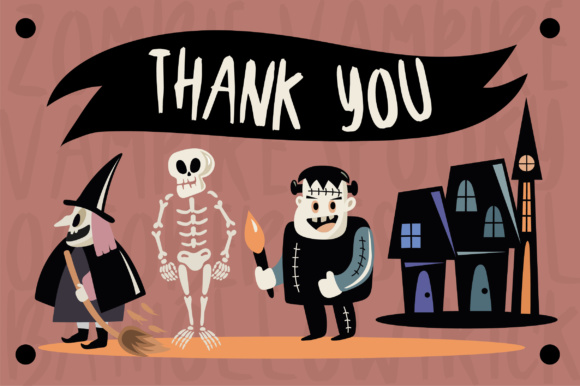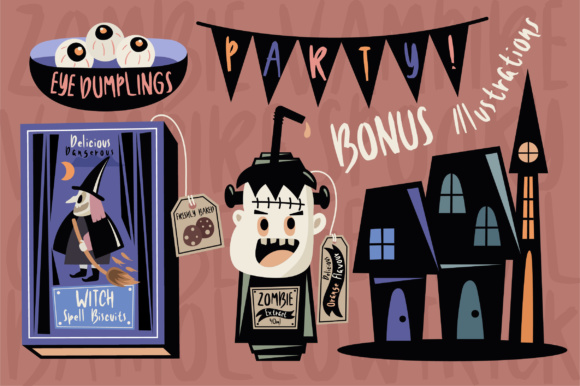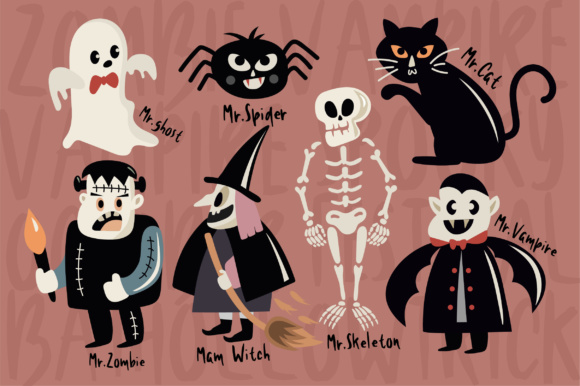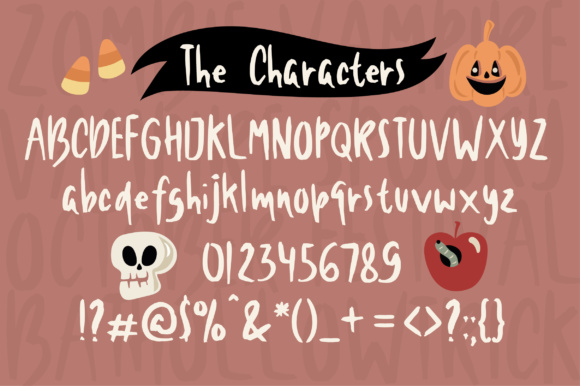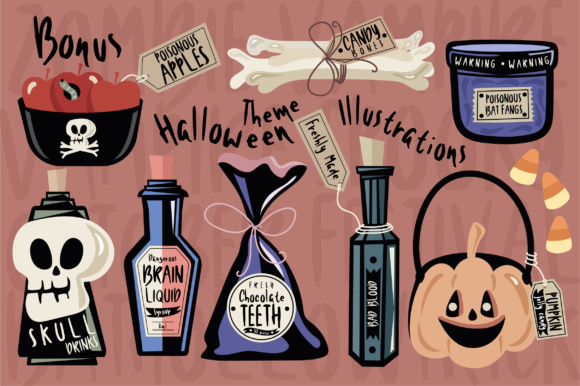
Black Shadows Font
About Black Shadows Font
Black Shadows is a handwriting font suitable for horror/fun themed designs. Black Shadows also includes 22 Halloween illustration as a bonus!